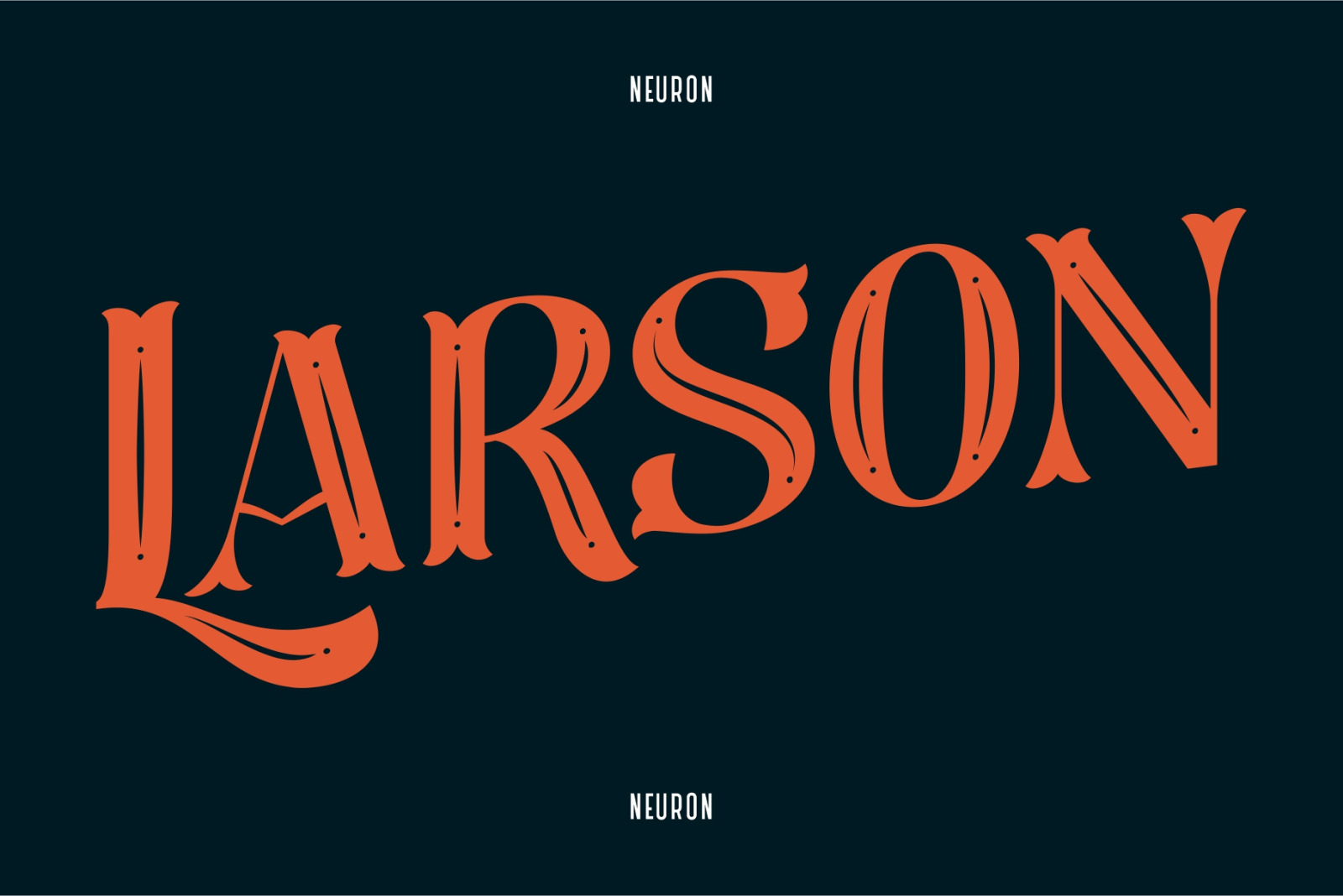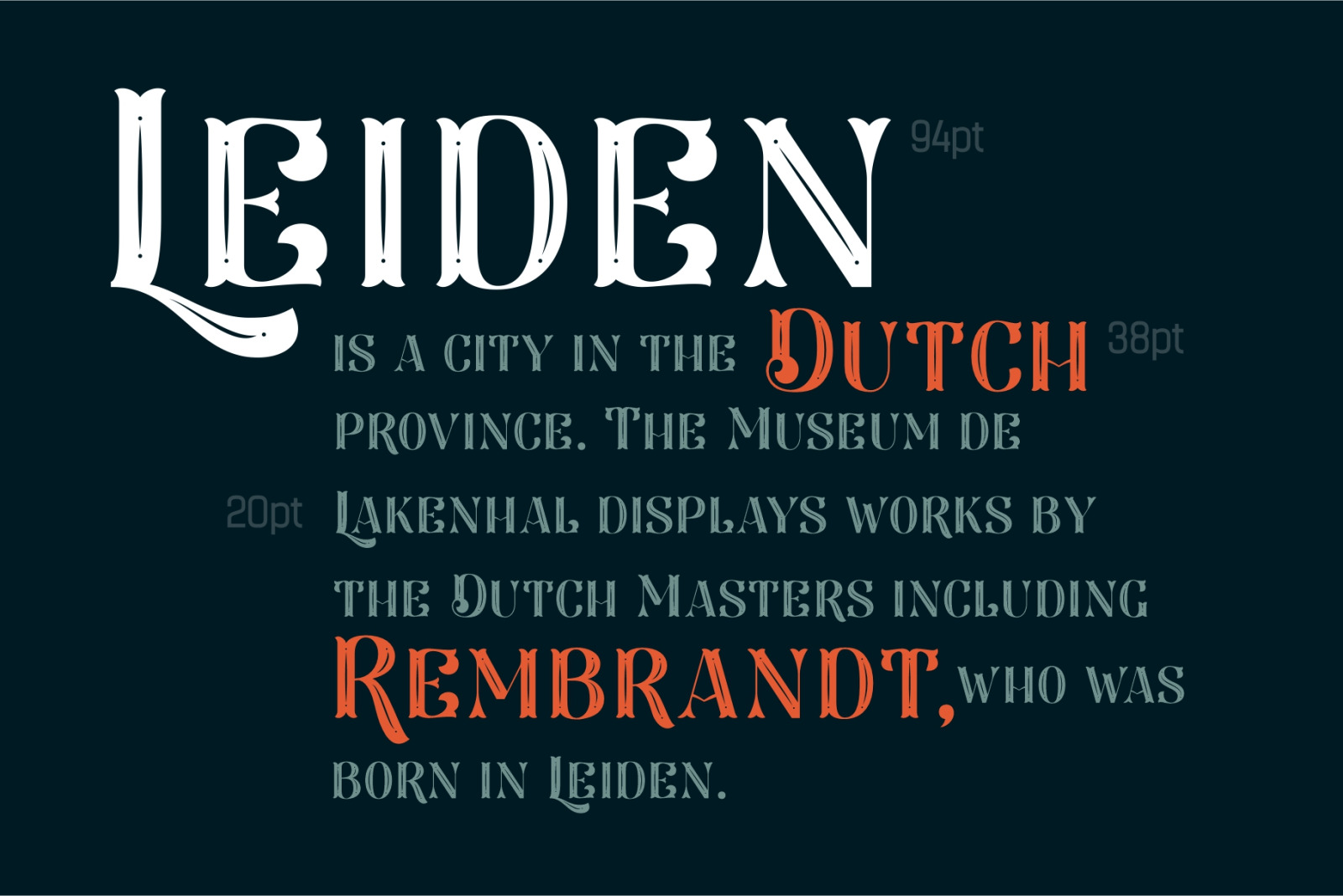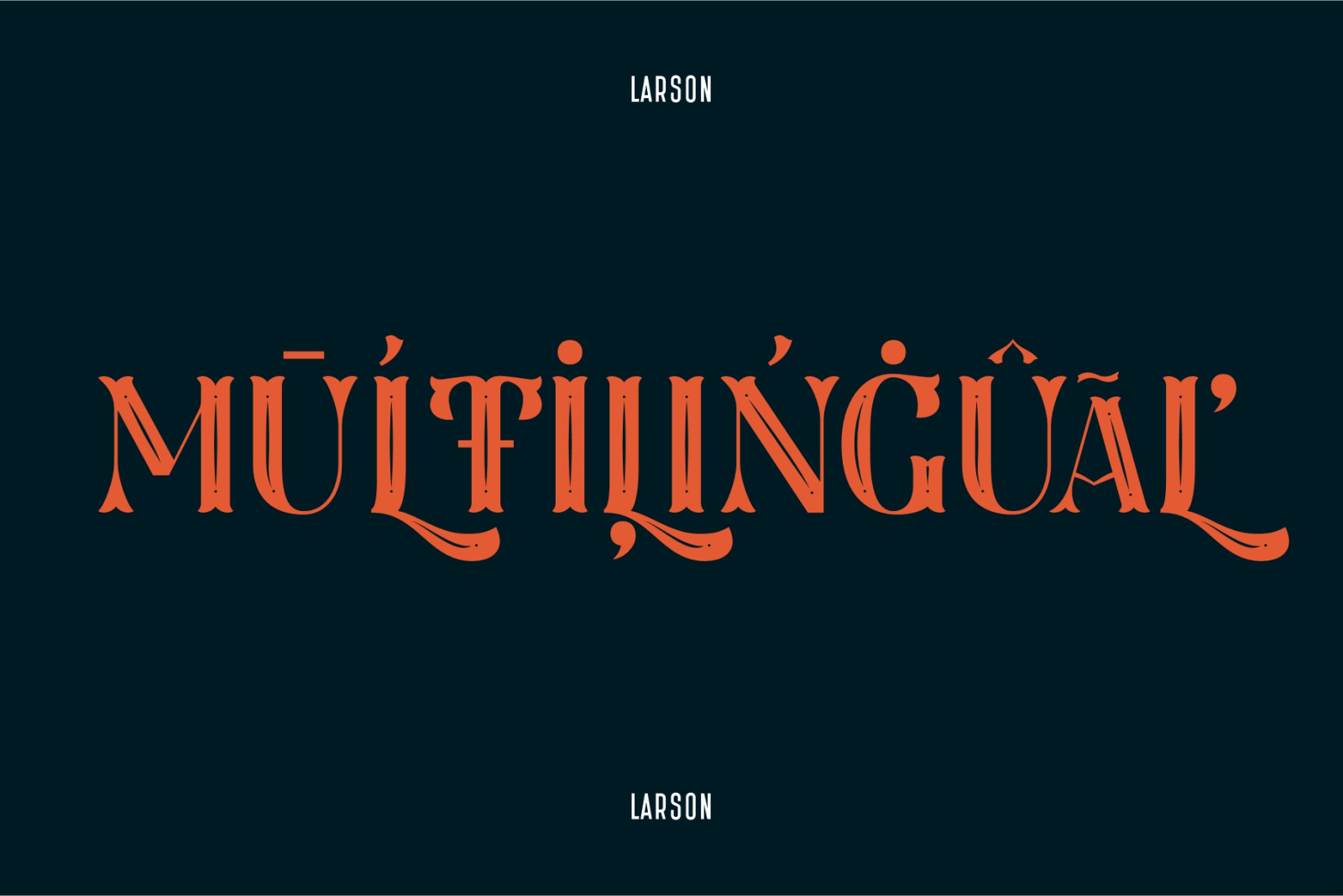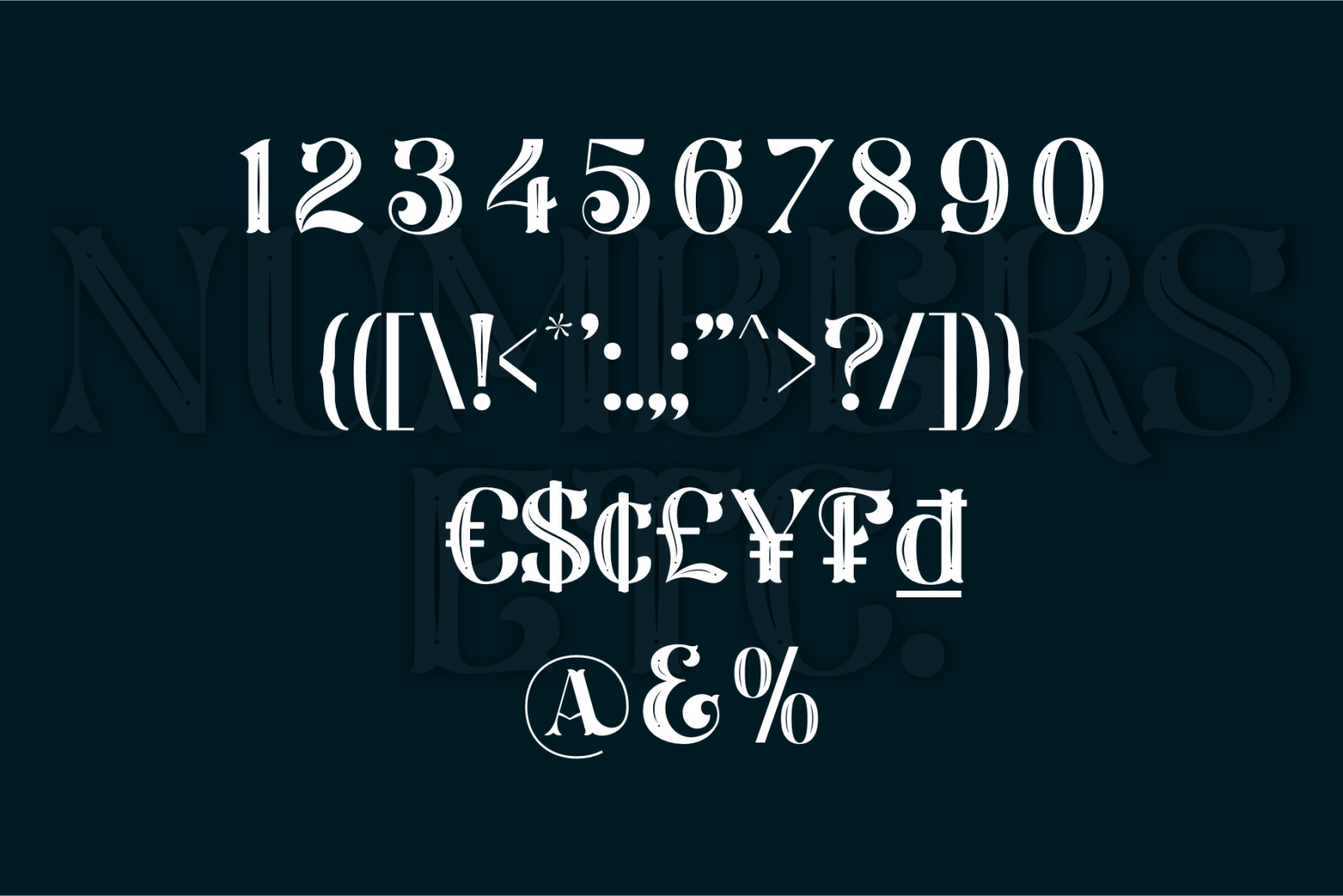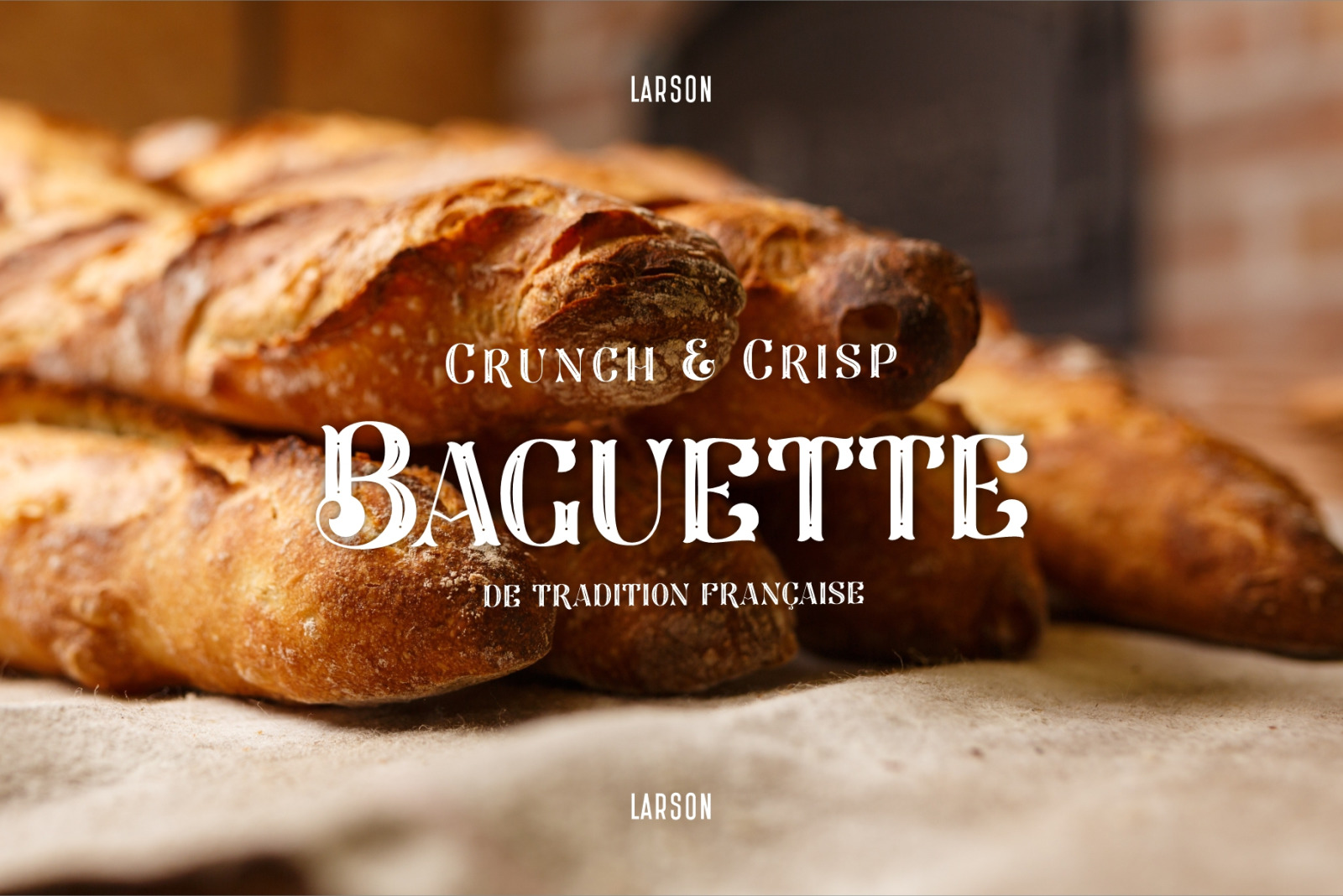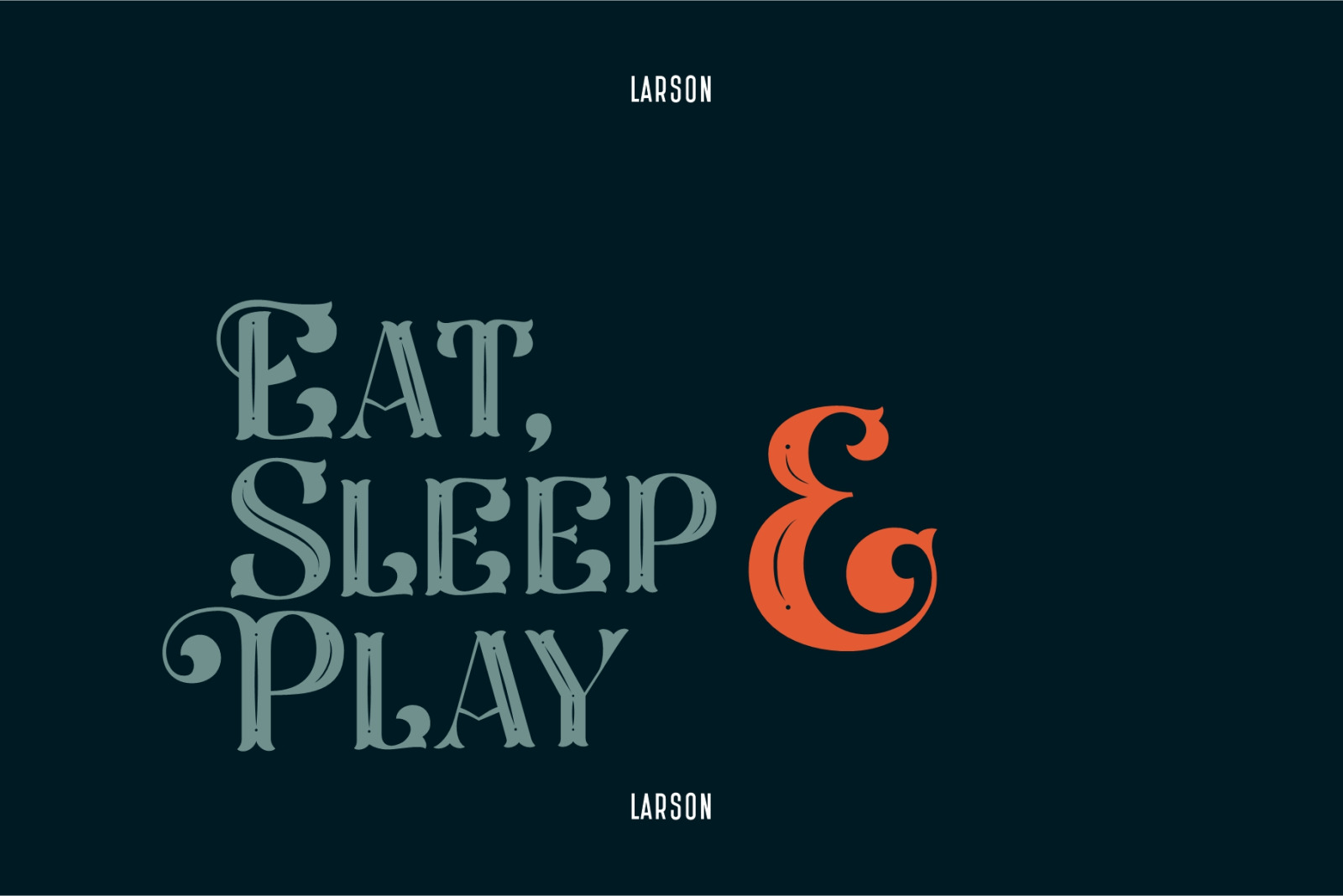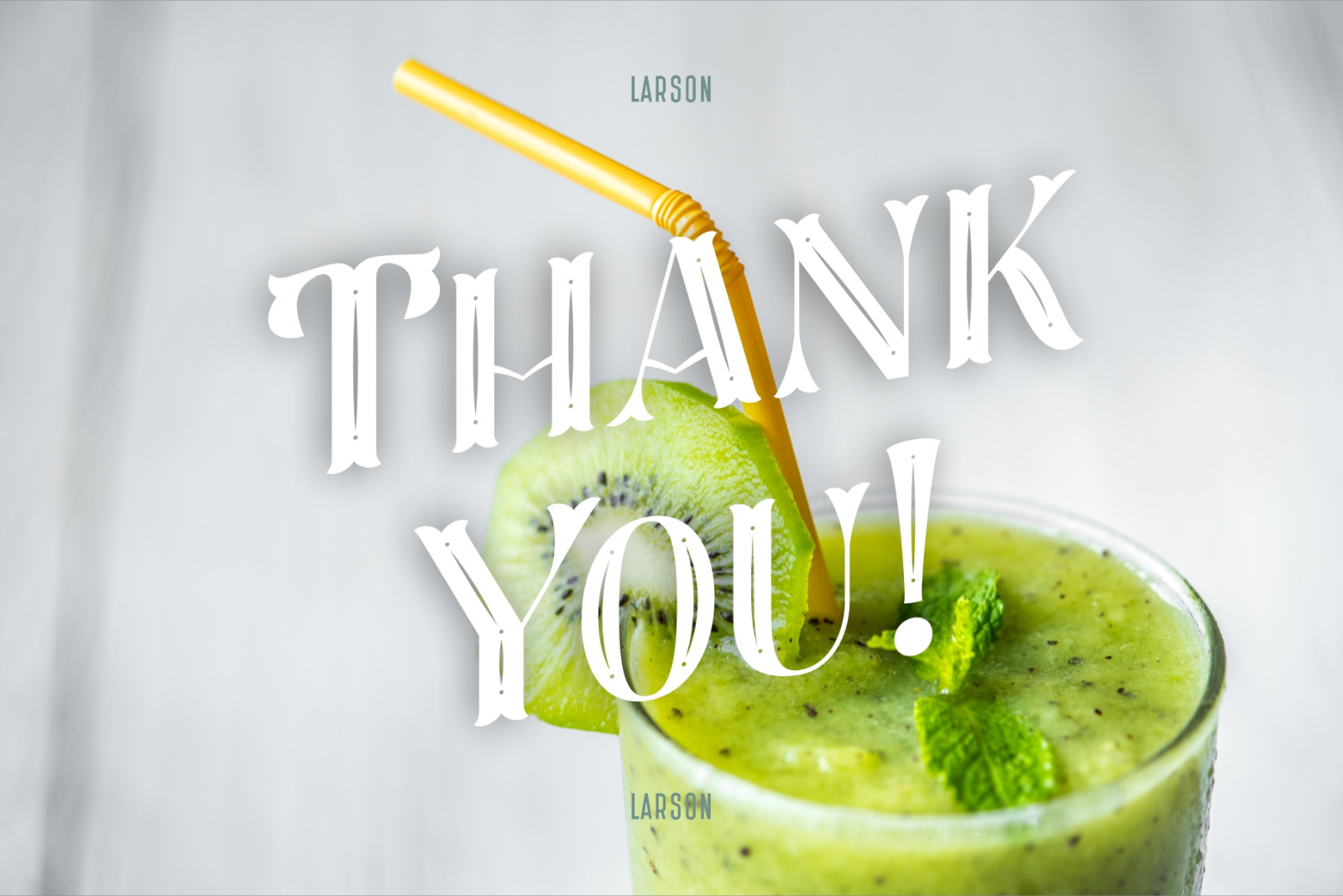
Larson Display Font
Larson is a decorative display font. It's vintage and contrast. A display font with personality. Ignite your project with Larson.
Language support; Afrikaans, Albanian, Bahasa, Catalan, Croatian, Czech, Danish, Dutch, English, Estonian, Finnish, French German, Hungarian, Icelandic, Italian, Latvian, Lithuanian, Maltese, Norwegian, Polish, Portuguese, Romanian, Slovak, Slovenian, Spanish, Swedish, Turkish, Zulu.